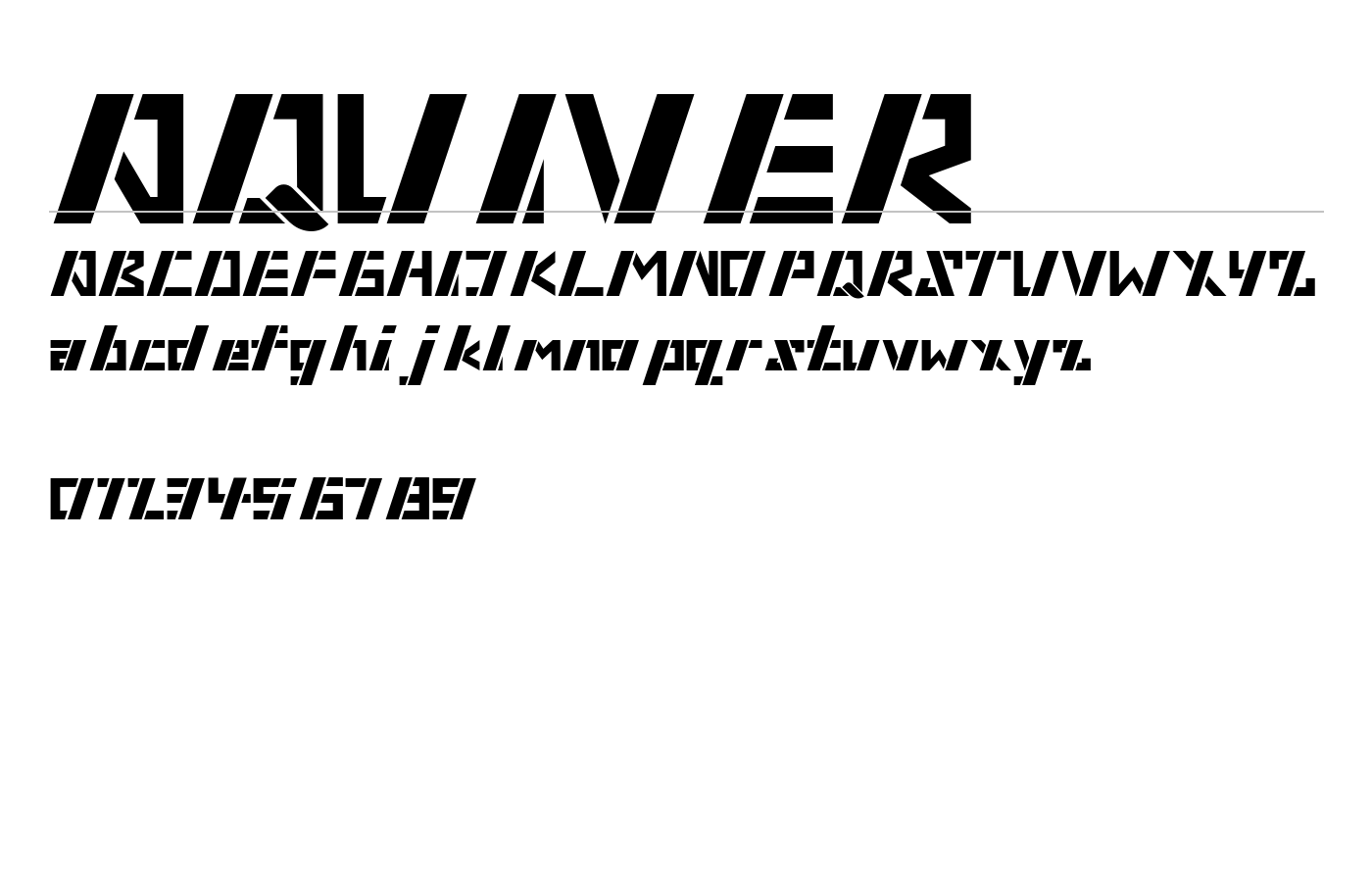
AQUIVER is a bold, condensed sans serif font with a striking futuristic and angular design. Its high contrast between thick and thin strokes, along with sharp geometric cuts and slanted letterforms, gives it a dynamic, energetic feel, perfect for modern, tech, or sports branding and impactful headlines. This font stands out in logos and posters where a strong, edgy statement is desired.
AQUIVER Font
About AQUIVER Font